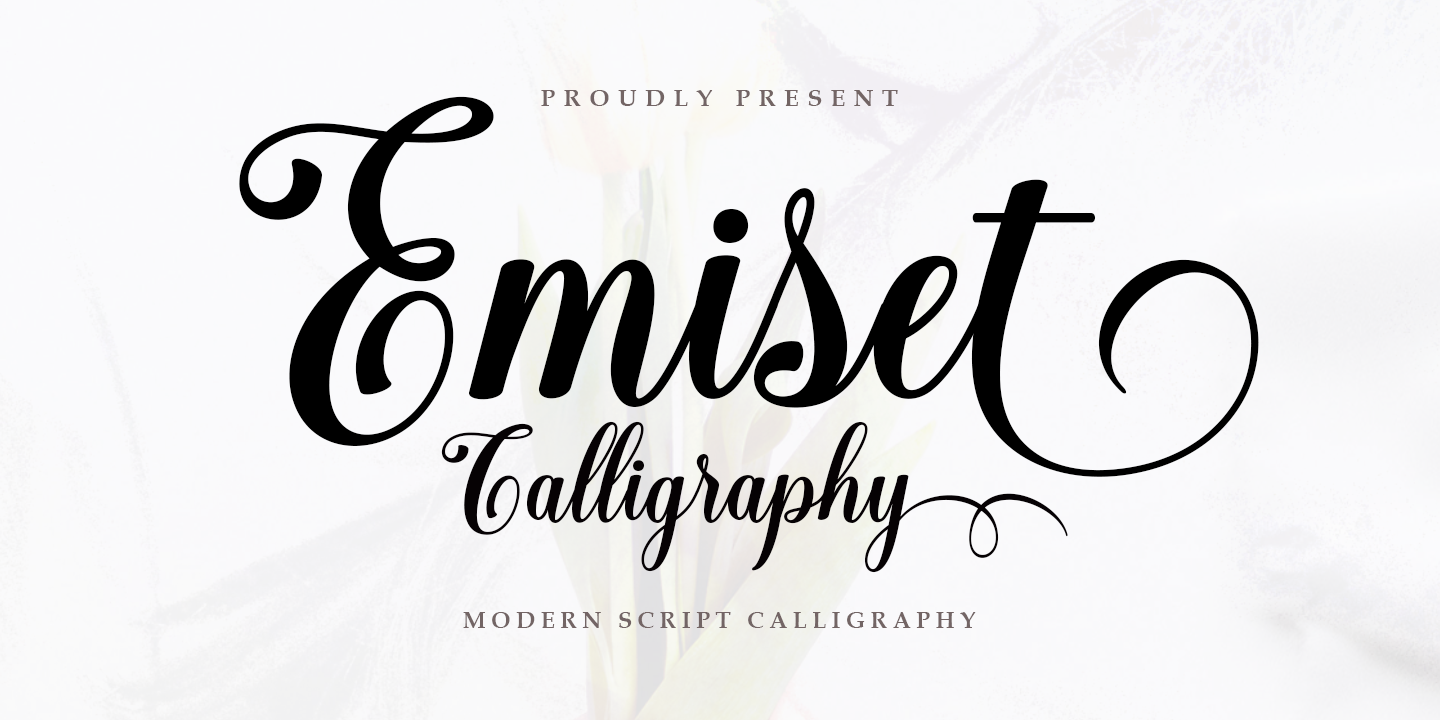
Emiset Calligraphy Font Free Download is an elegant and refined script typeface inspired by traditional calligraphy with a modern touch. Its flowing, cursive strokes and sophisticated design make it perfect for projects that require a stylish, handwritten feel, such as wedding invitations, branding, greeting cards, social media graphics, and product packaging.
The font’s smooth curves and delicate lines ensure excellent readability while maintaining a luxurious, artistic character. Emiset Calligraphy brings a sense of elegance and personality, making it ideal for both print and digital designs that aim to leave a lasting impression.
Emiset Calligraphy is a beautiful addition to any designer's toolkit, offering a timeless and elegant handwritten style perfect for creating sophisticated and memorable designs.